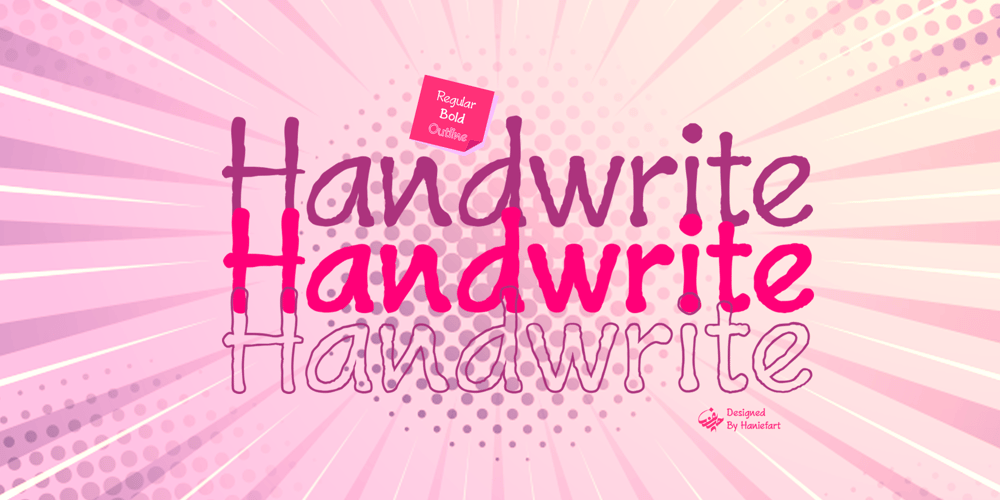
Handwrite
Handwrite font
Handwrite Font Family was designed by Hanif Maulazi and published by Haniefart. Handwrite contains 3 styles and family package options. Handwrite is a type of font written by hand, which looks cute, elegant and unique, consisting of uppercase and lowercase letters. Handwrite fonts can be used for magazines, comics, banners, branding, t-shirts, flyers, and many others.